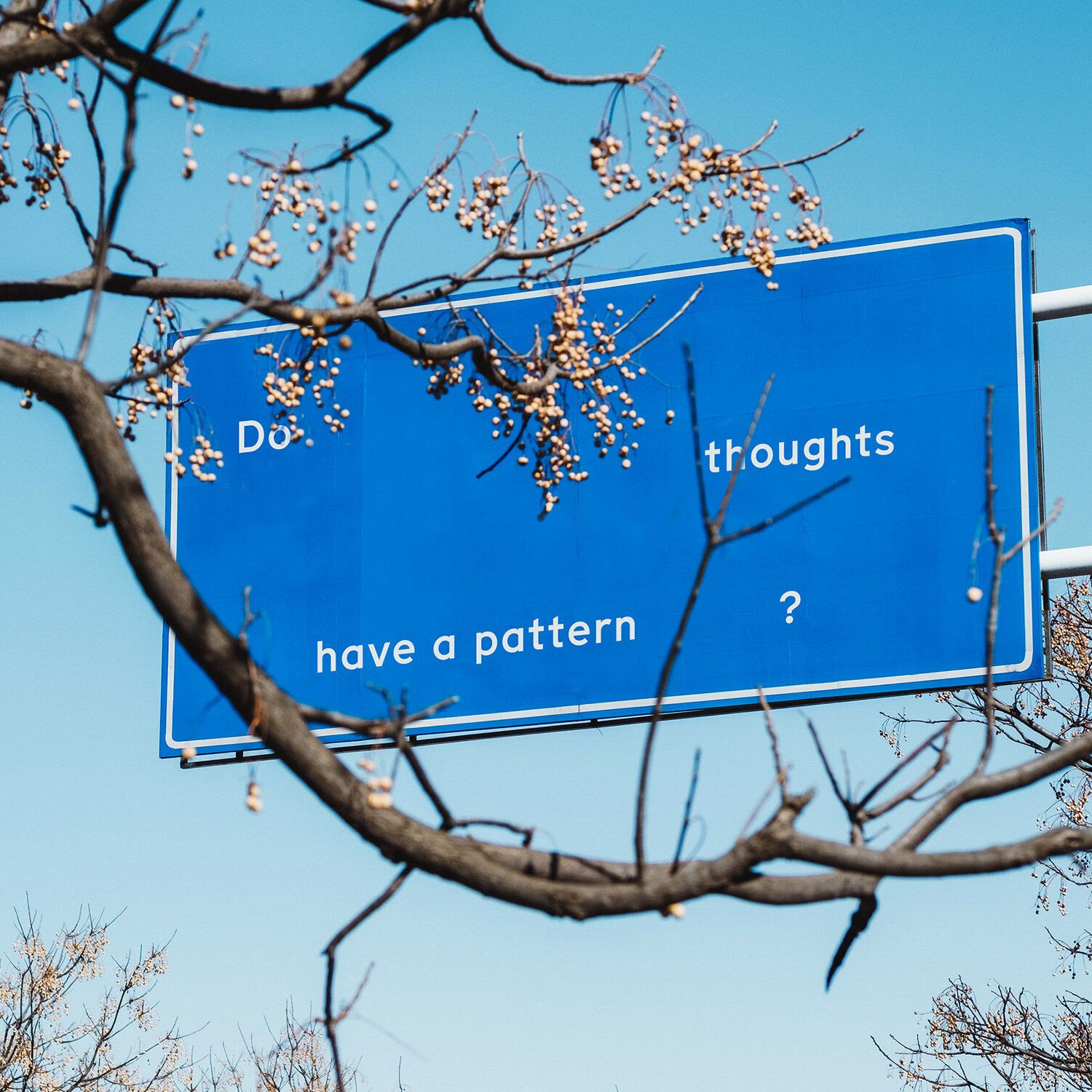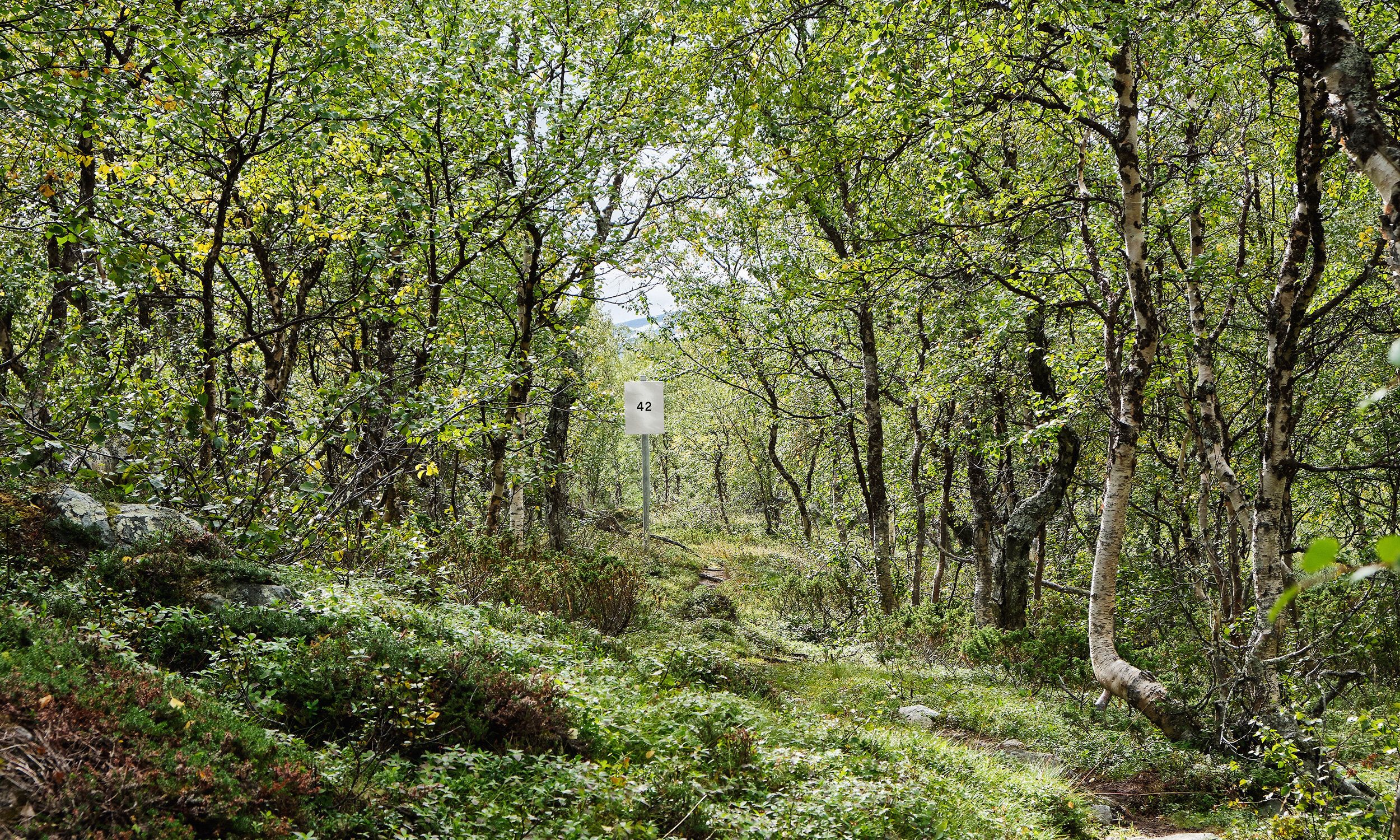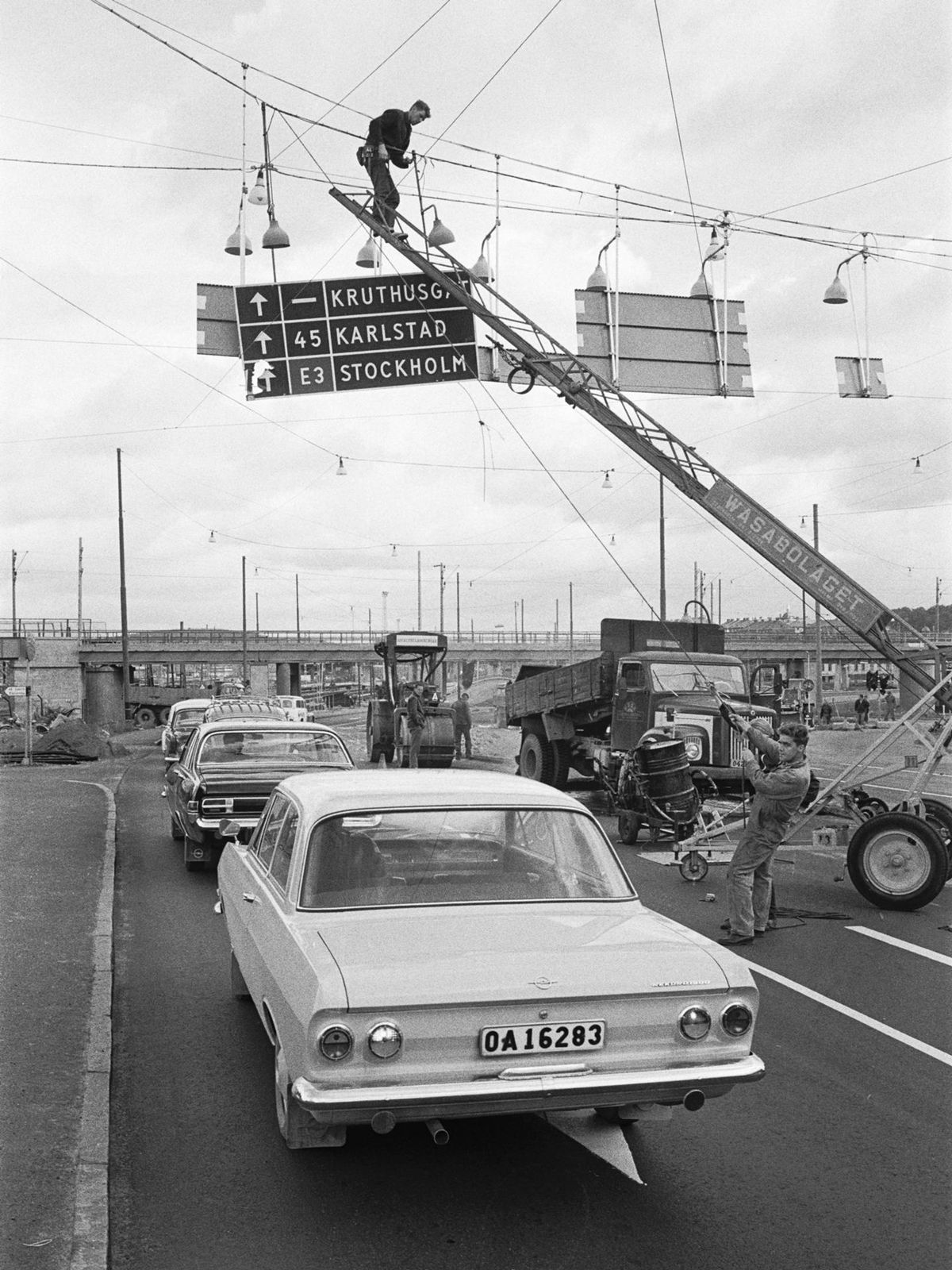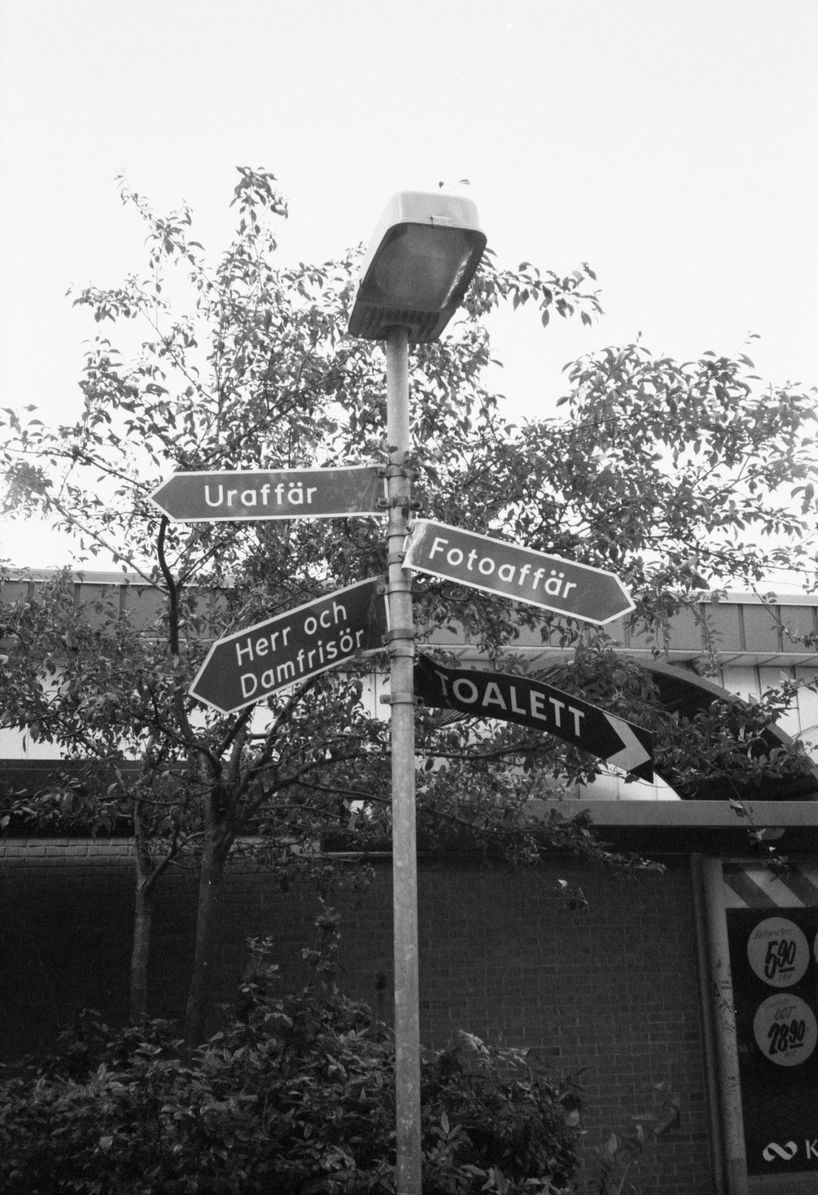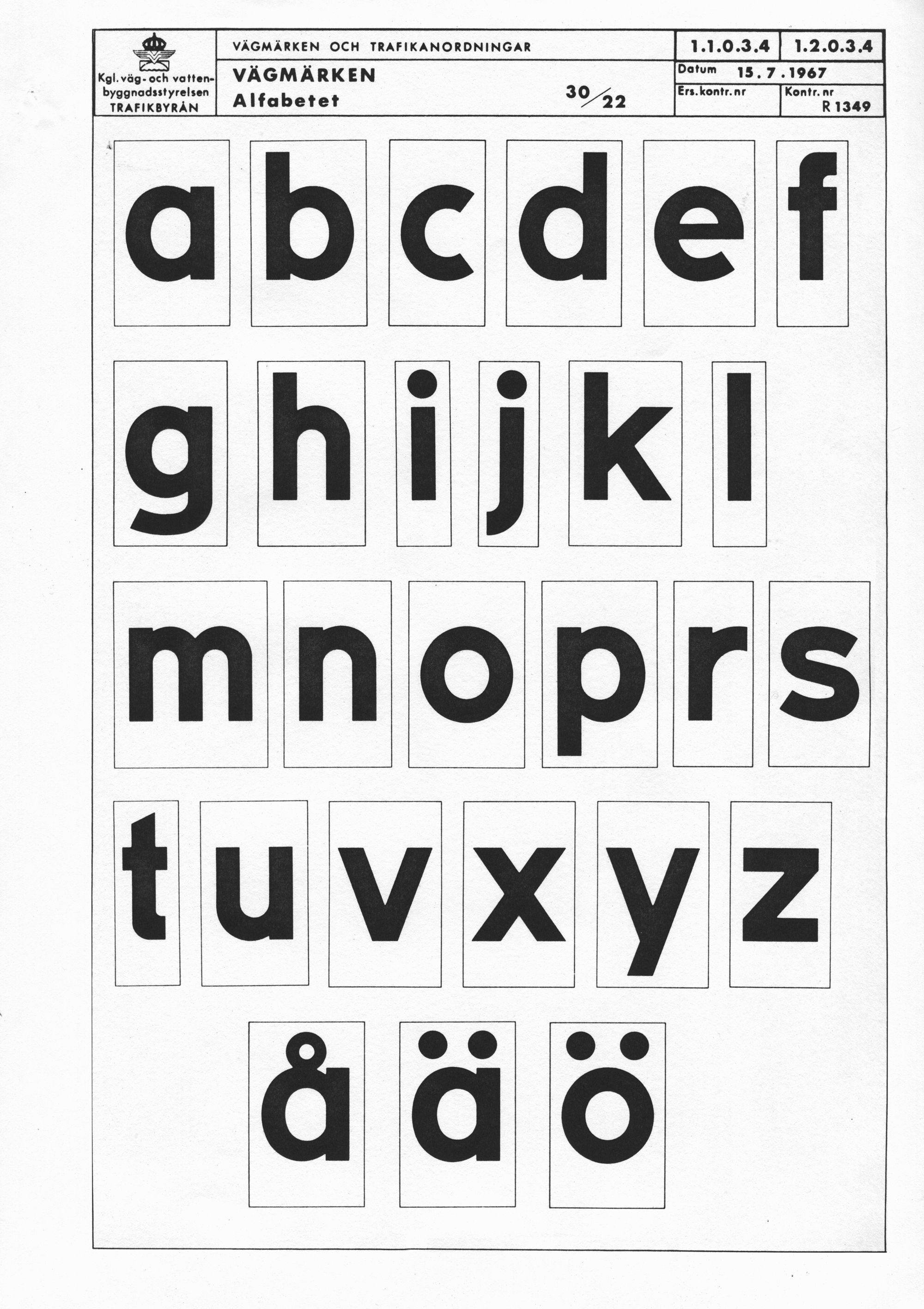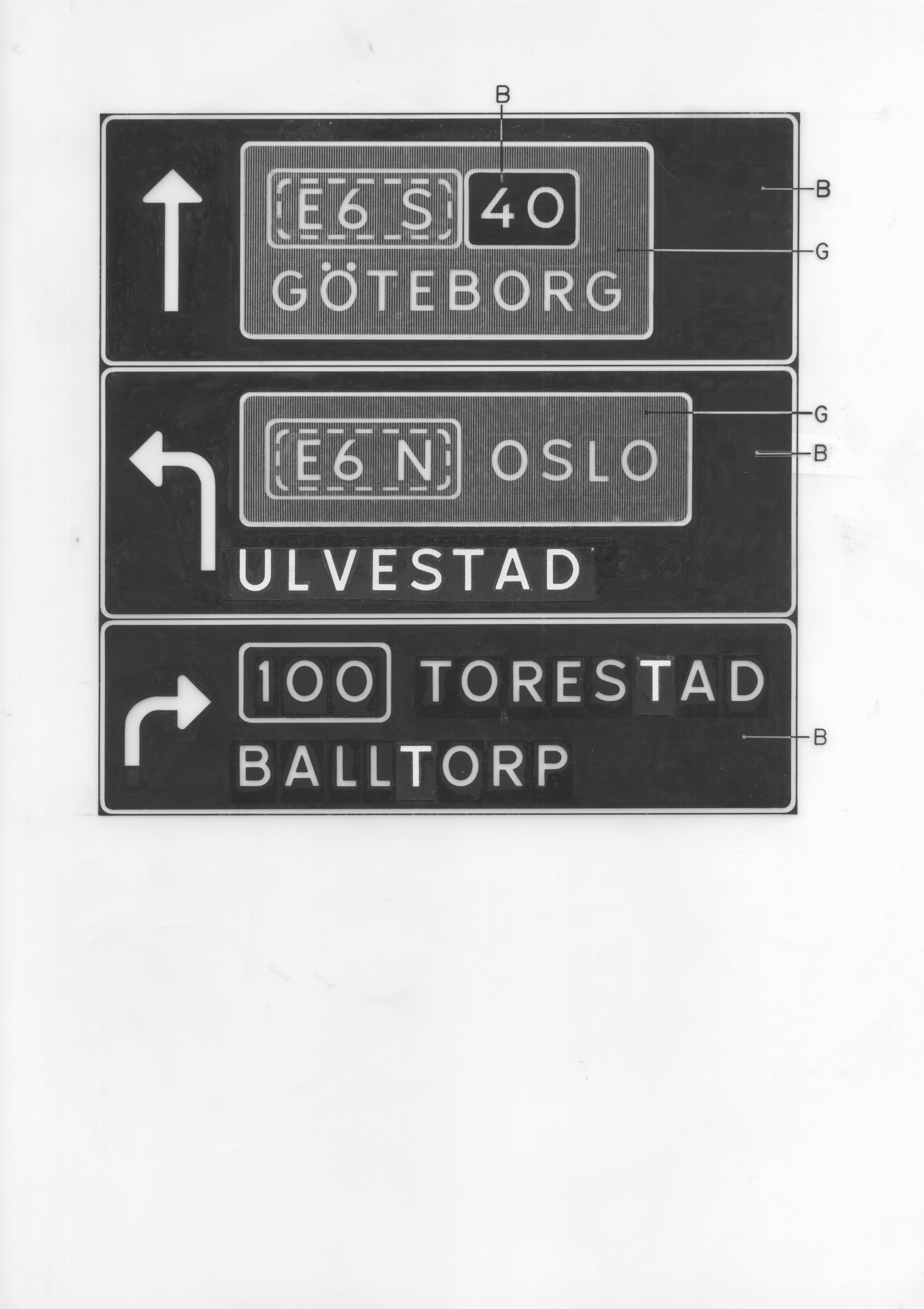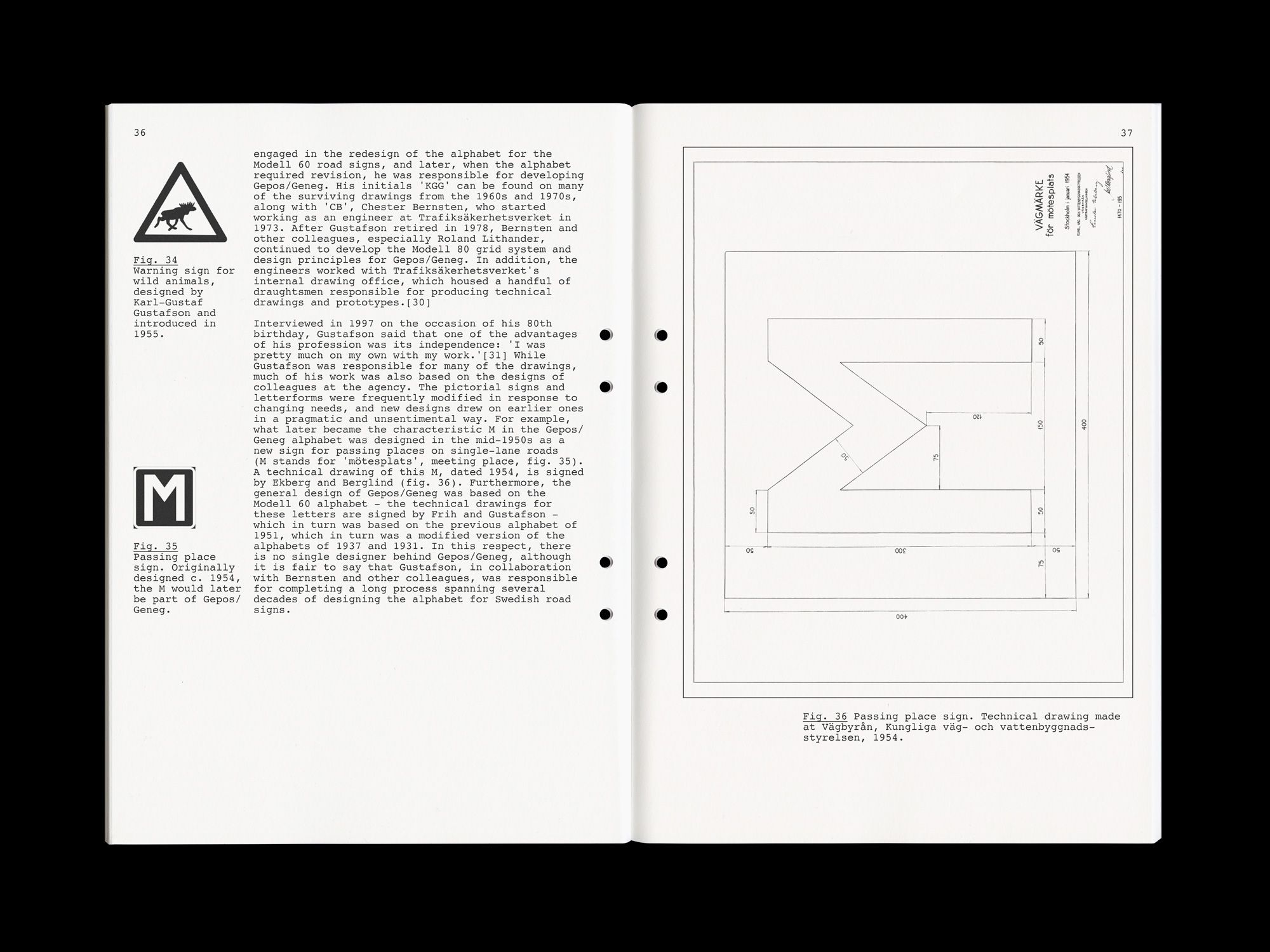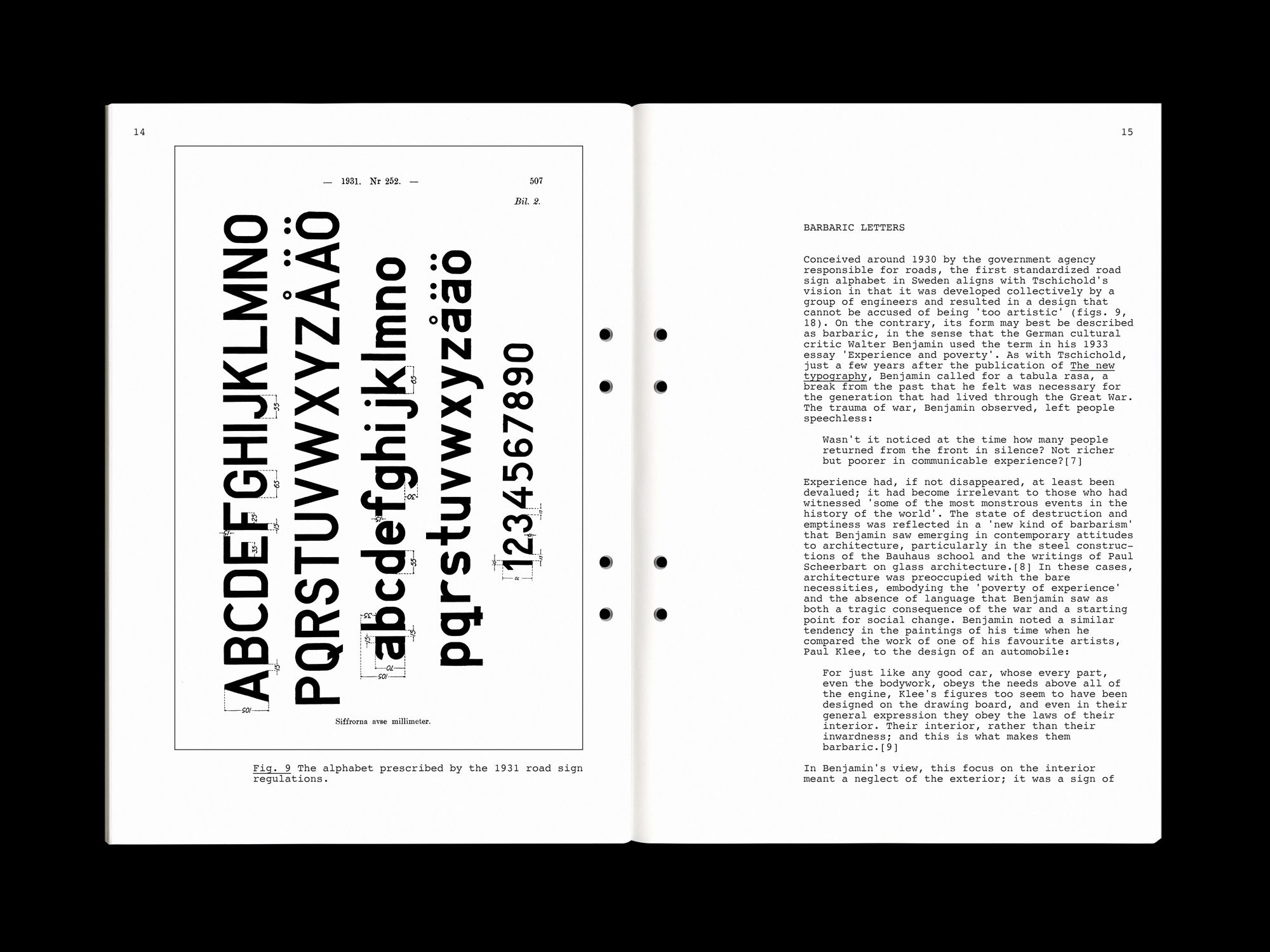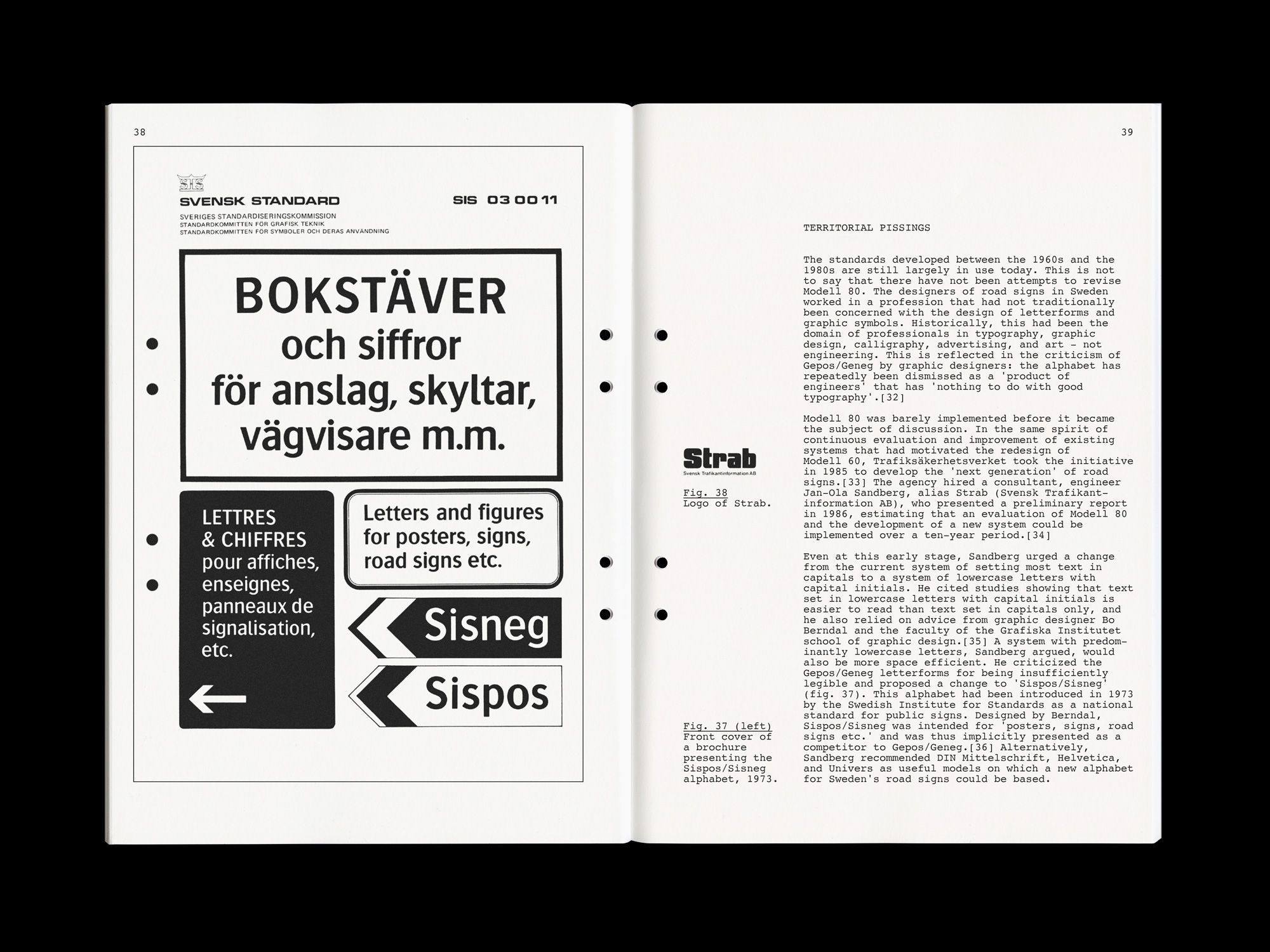
Communicating heritage – The character shapes pay homage to the old templates for type on Swedish road signs, while also looking fresh and appealing to a contemporary audience.
Munken
Genius Loci Revisited
Our track record for original typefaces led JUNO to commission a new corporate font for Arctic Paper’s Munken brand, based on the historical letterforms on Swedish road signs. Type designers Laurenz Brunner and Selina Bernet developed a family of three weights for wide use, which generated more than 15.000 free downloads. We added an in-depth research publication exploring the unmapped territory and genealogy of Swedish road signs with designers Jonas Williamsson and Rikard Heberling.
Wide applicability – Transforming the single-weight display typeface into a three-weights family for title and body text setting was part of the challenge in the design process.
Research contribution – Expanding the collaborative project, an in-depth historical study relying on a trove of hitherto unpublished sources investigated the making of the early versions of the typeface at the Swedish department for road traffic.
Service to the community – The corporate typeface carries Munken’s interaction with the design community, via the Munken CoLab, and it was distributed for free during an initial three-month period.